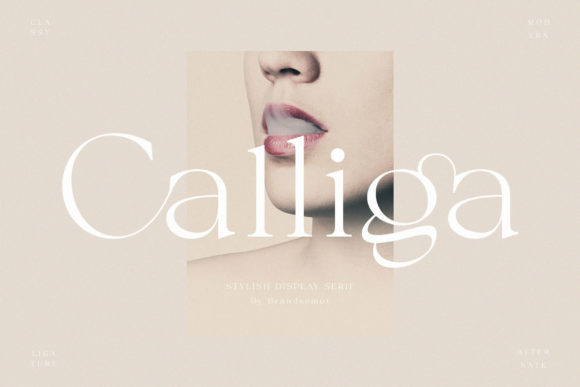
In a world of boundless creativity, where words dance and stories unfold, allow us to introduce Calliga, a serif font that captivates with its delicate, thin letters and elegant charm. This masterpiece, crafted by BrandSemut, is more than just a font; it's an invitation to explore a realm of beauty and sophistication.
With Calliga's graceful curves and refined lines, your designs will transcend the ordinary and take on an ethereal allure. Its minimalist essence lends itself perfectly to creating captivating logos that speak volumes with simplicity. Picture your brand adorned with a Calliga logo, exuding an air of timeless elegance that resonates with your audience.
Step into the world of Calliga and discover a font that breathes life into your creative endeavors. Its versatility extends beyond logos, making it an ideal choice for wedding invitations that evoke romance and charm. Envision your special day adorned with Calliga's delicate touch, transforming your vows into a tangible work of art.
But Calliga's magic doesn't stop there. Its beauty transcends the boundaries of paper, gracing social media posts with an eye-catching allure. Let your Instagram feed radiate with Calliga's presence, captivating your followers with posts that demand attention. Share your thoughts, quotes, and musings, adorned with Calliga's timeless elegance.
And for those with a passion for stationery art, Calliga is your muse. Its delicate strokes will dance across your cards, envelopes, and journals, transforming them into cherished keepsakes. Create personalized stationery that reflects your unique style, a reflection of your refined taste.
Calliga isn't just a font; it's an experience, a journey into the realm of visual enchantment. Download Calliga today and unlock a world of creative possibilities. Let your imagination soar, let your words flow, and let Calliga elevate your designs to new heights of beauty and grace. Embrace the magic of Calliga and transform your creative dreams into tangible masterpieces.